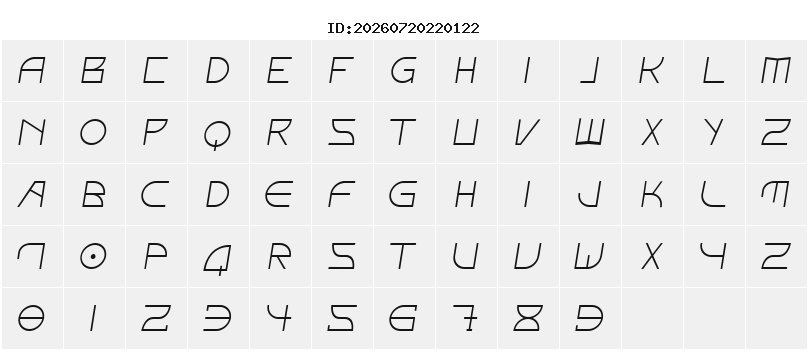
• Font Name: Fontcop IV
• Designer: Apostrophe (') and Alejandro Paul.
About Fontcop IV.ttf
Fontcop IV.ttf is a modern, elegant sans-serif font designed for ultimate readability and visual harmony. Perfect for branding, headlines, web design, and print materials.